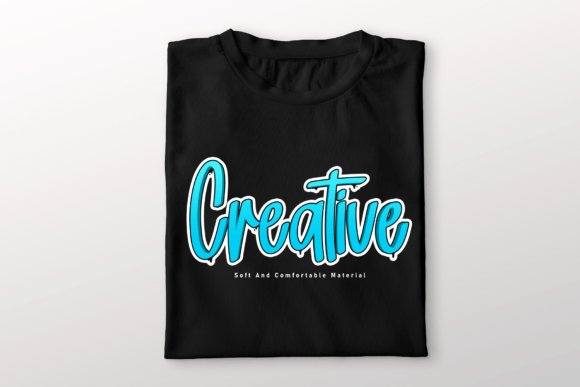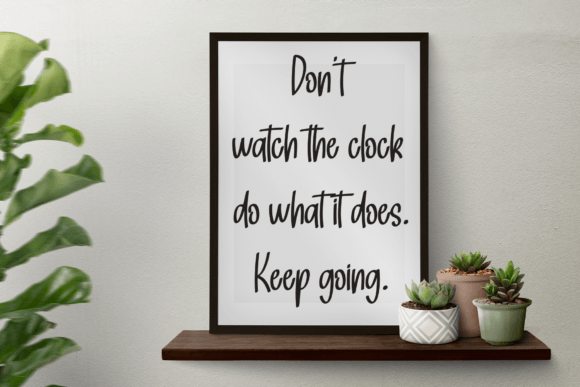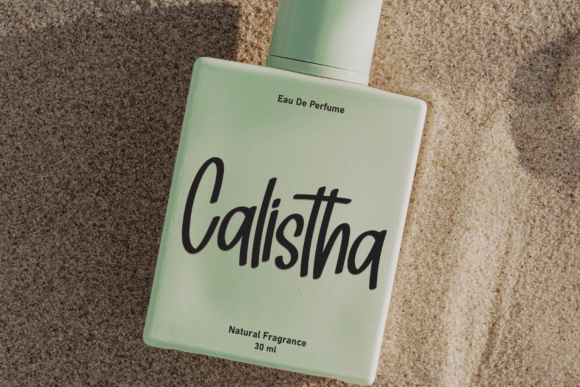
Christmas Bundle Font
Unwrap the festive charm of “Christmas Bundle,” a playful handwritten font that captures the joyous spirit of the season. With whimsical strokes and a hint of holiday magic, this font adds a touch of fun to your Christmas projects. Whether you’re crafting greeting cards, festive banners, or spreading holiday cheer through your designs, the Christmas Bundle brings a delightful handwritten flair that embodies the merriment of the season. Get ready to infuse your creations with the warmth and joy of Christmas with this delightful font bundle.